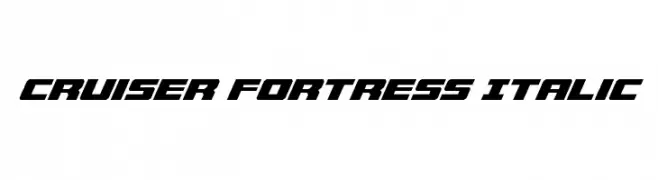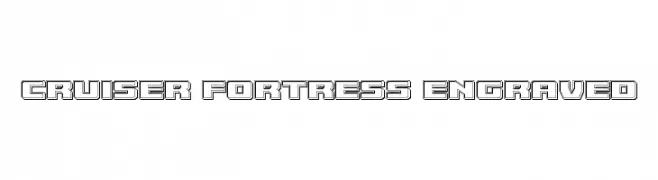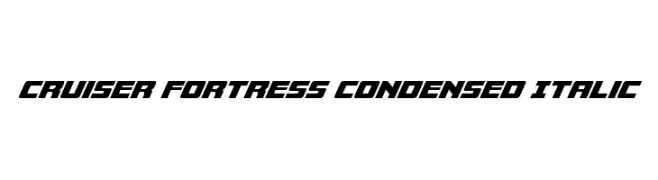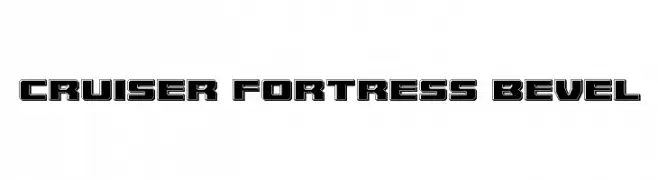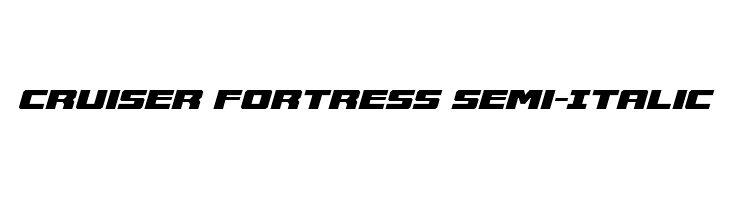
A bold, robust font with thick strokes and a slightly condensed style.
A bold, geometric font with a modern, industrial style.
A bold, engraved italic font with a modern, three-dimensional style.
A bold, italic font with angular, dynamic characters and a modern, industrial feel.
A bold, geometric font with a 3D engraved effect, ideal for impactful designs.
A bold, condensed, and italicized font with a futuristic and dynamic style.
A bold, italicized font with a modern, three-dimensional style.
A bold, geometric font with a three-dimensional beveled effect.
A bold, geometric font with an expanded width and industrial style.